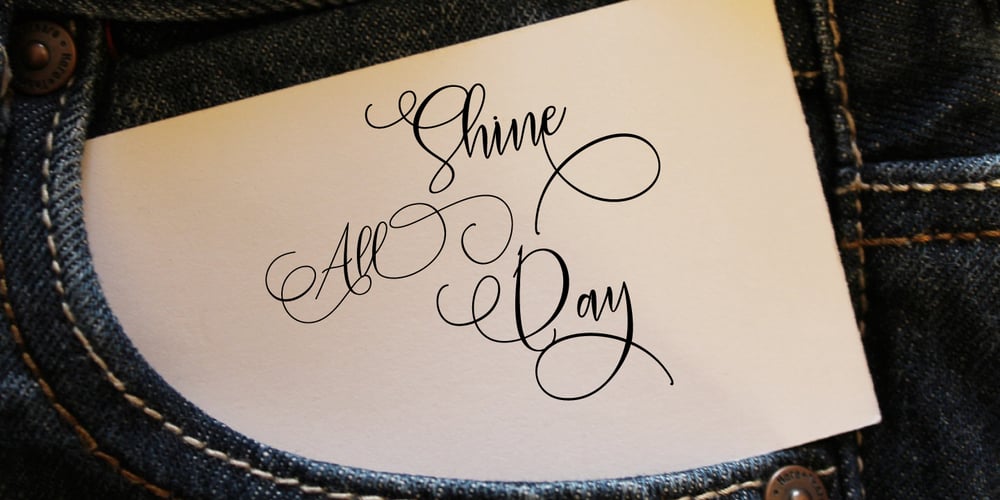
December Font Family was designed by Koi and published by OrakArik. December contains 1 styles and family package options. December is an easy to use script, suitable for greeting cards, logos, watermarks, and more. It is made with a light and elegant drawing style, as a reminder of a quieter season at the end of the year.